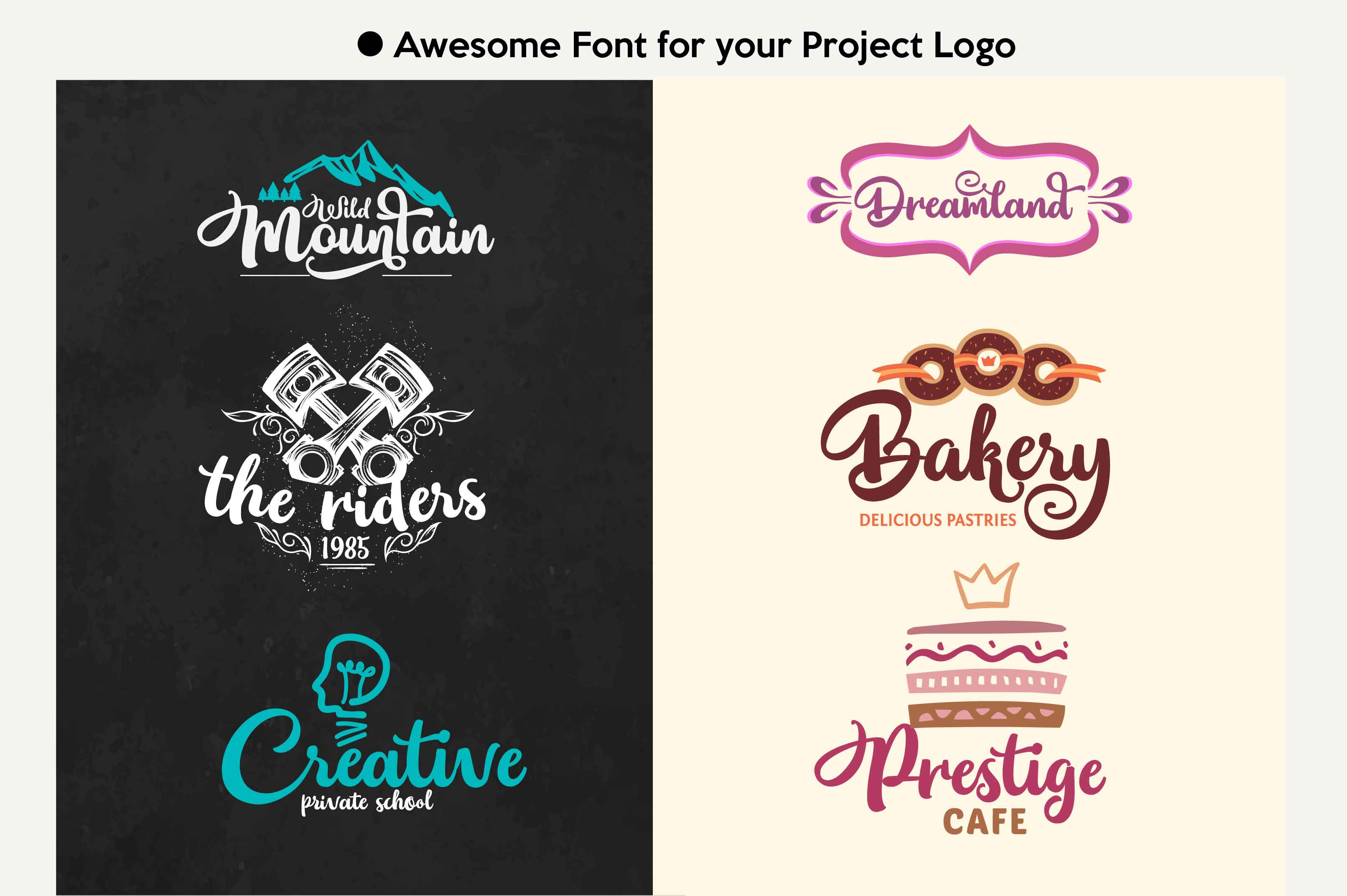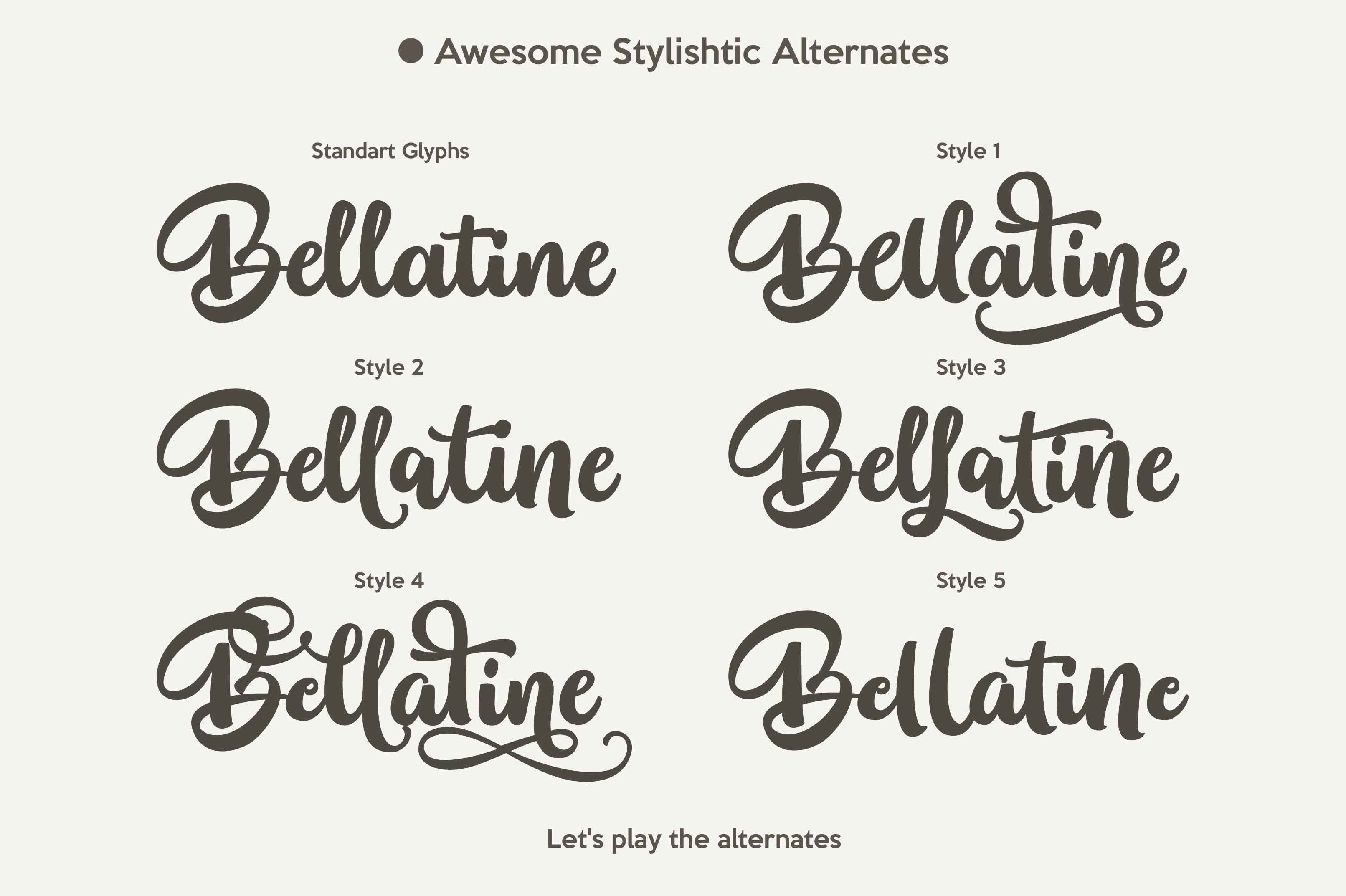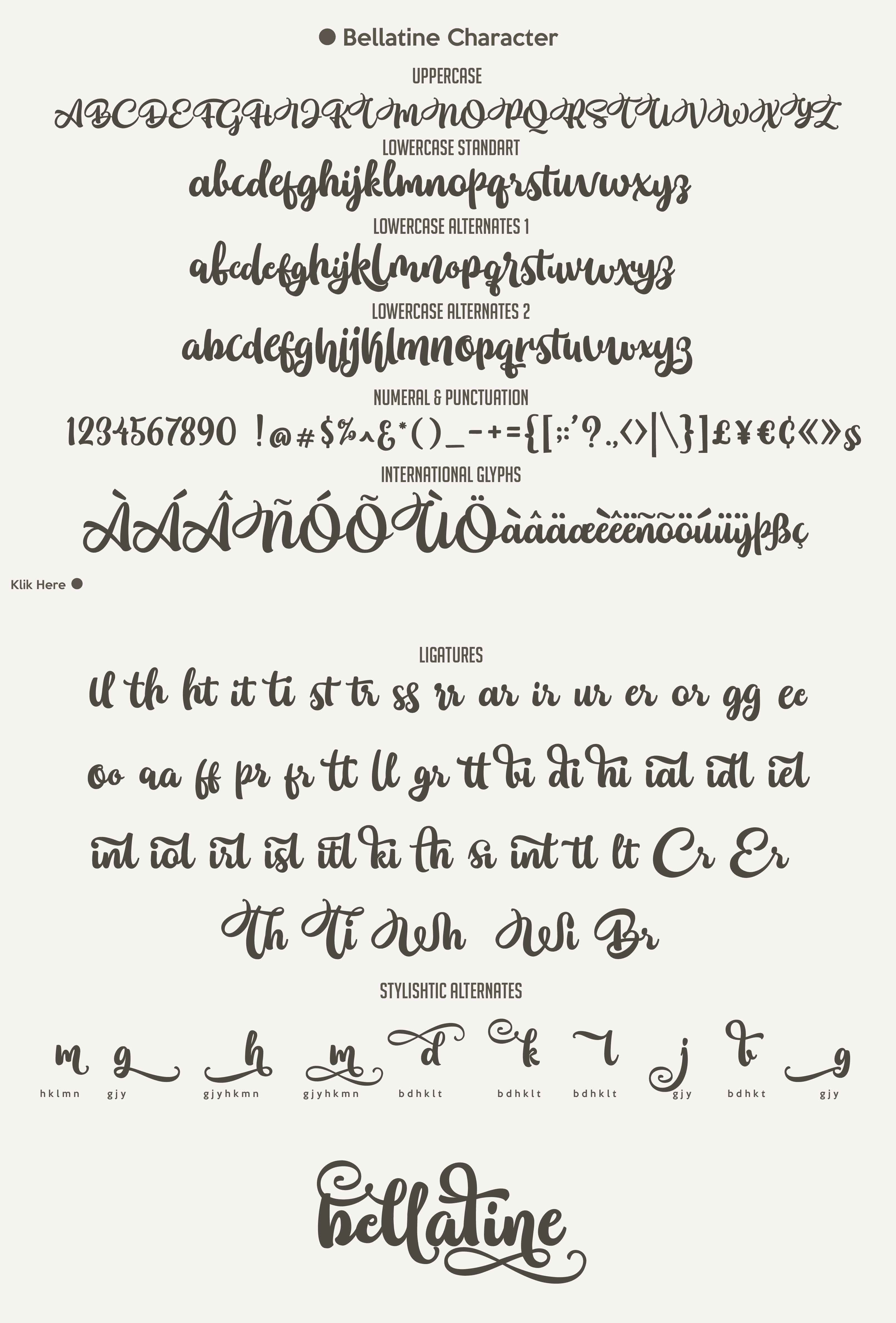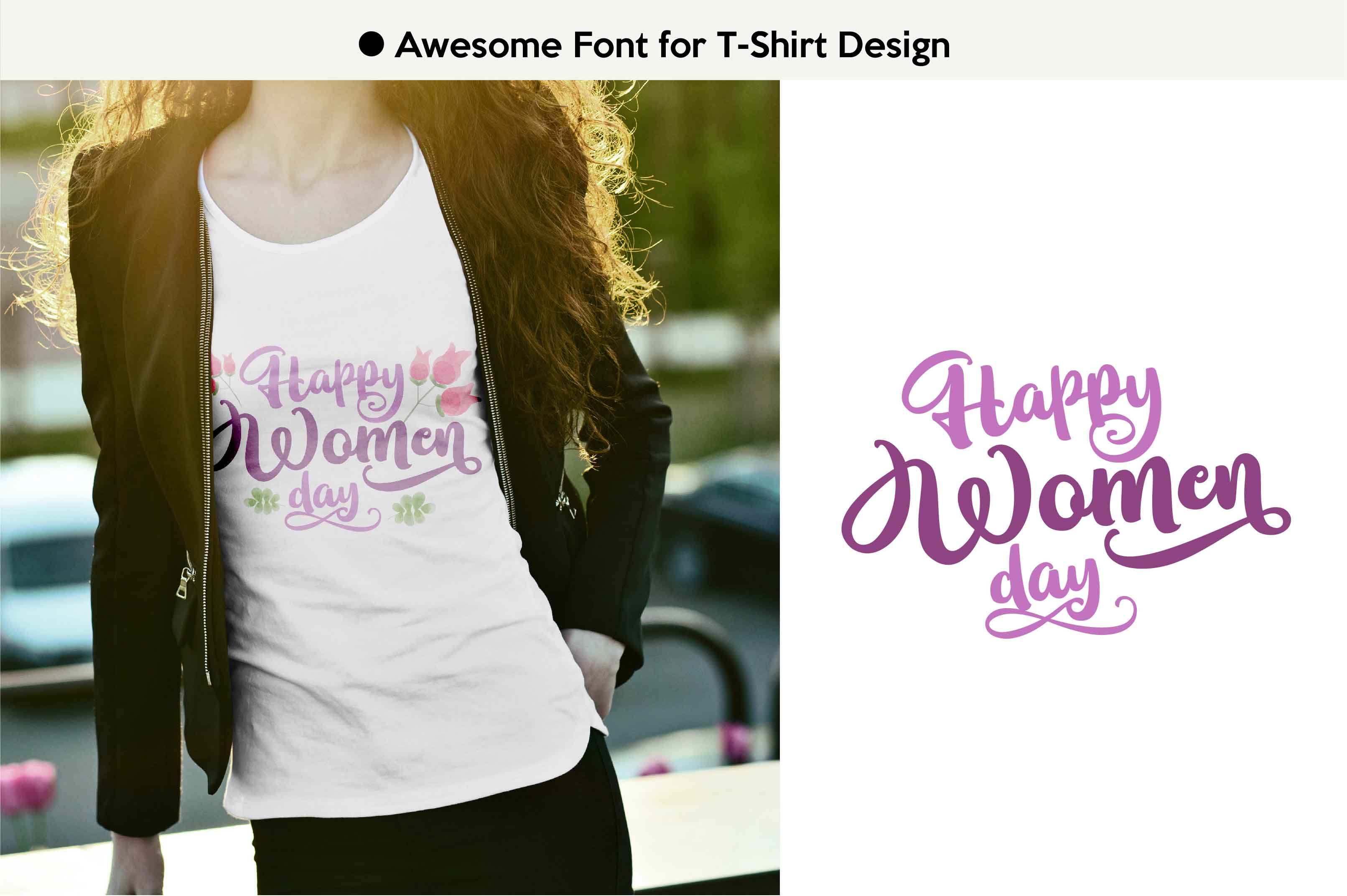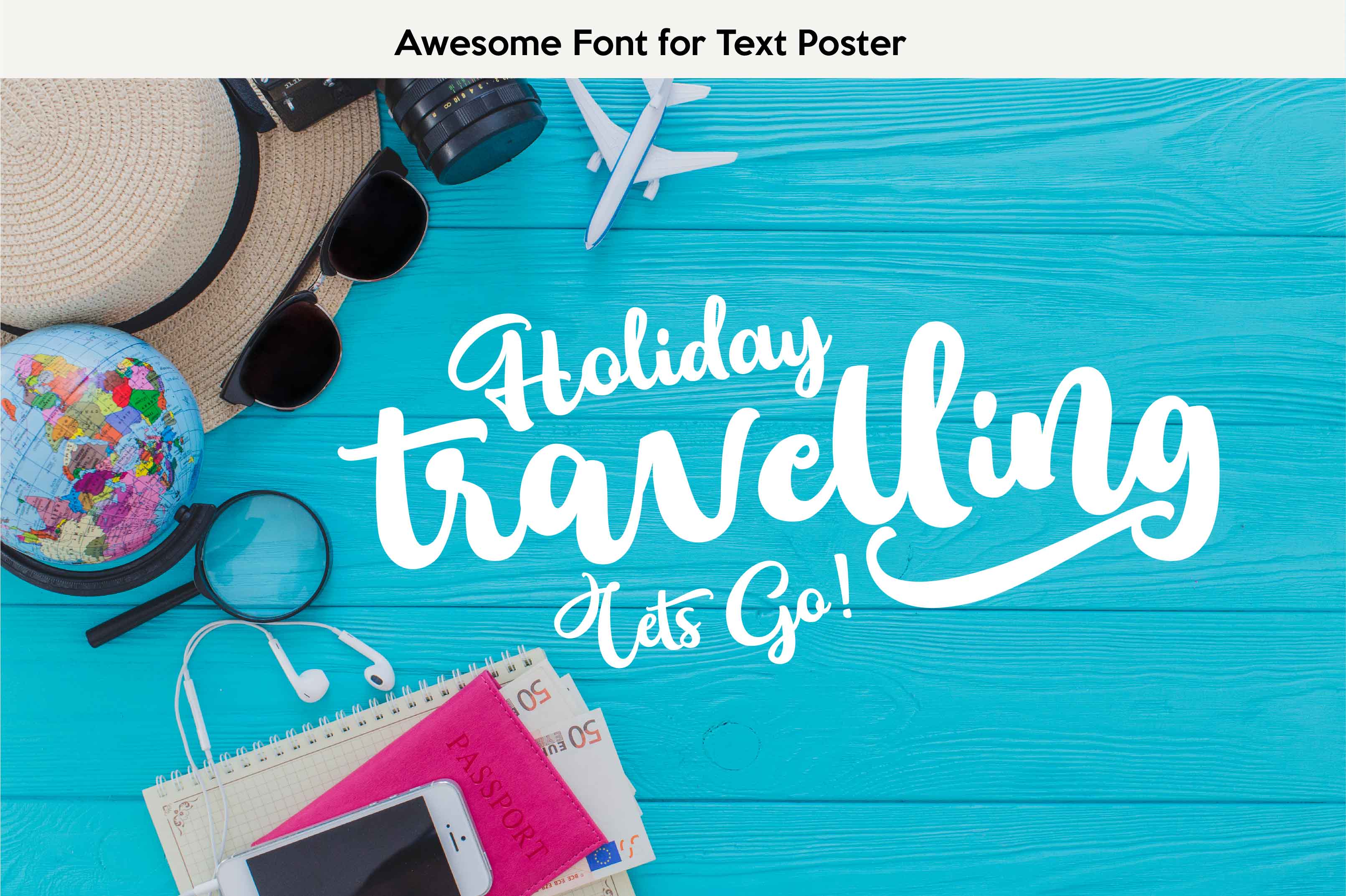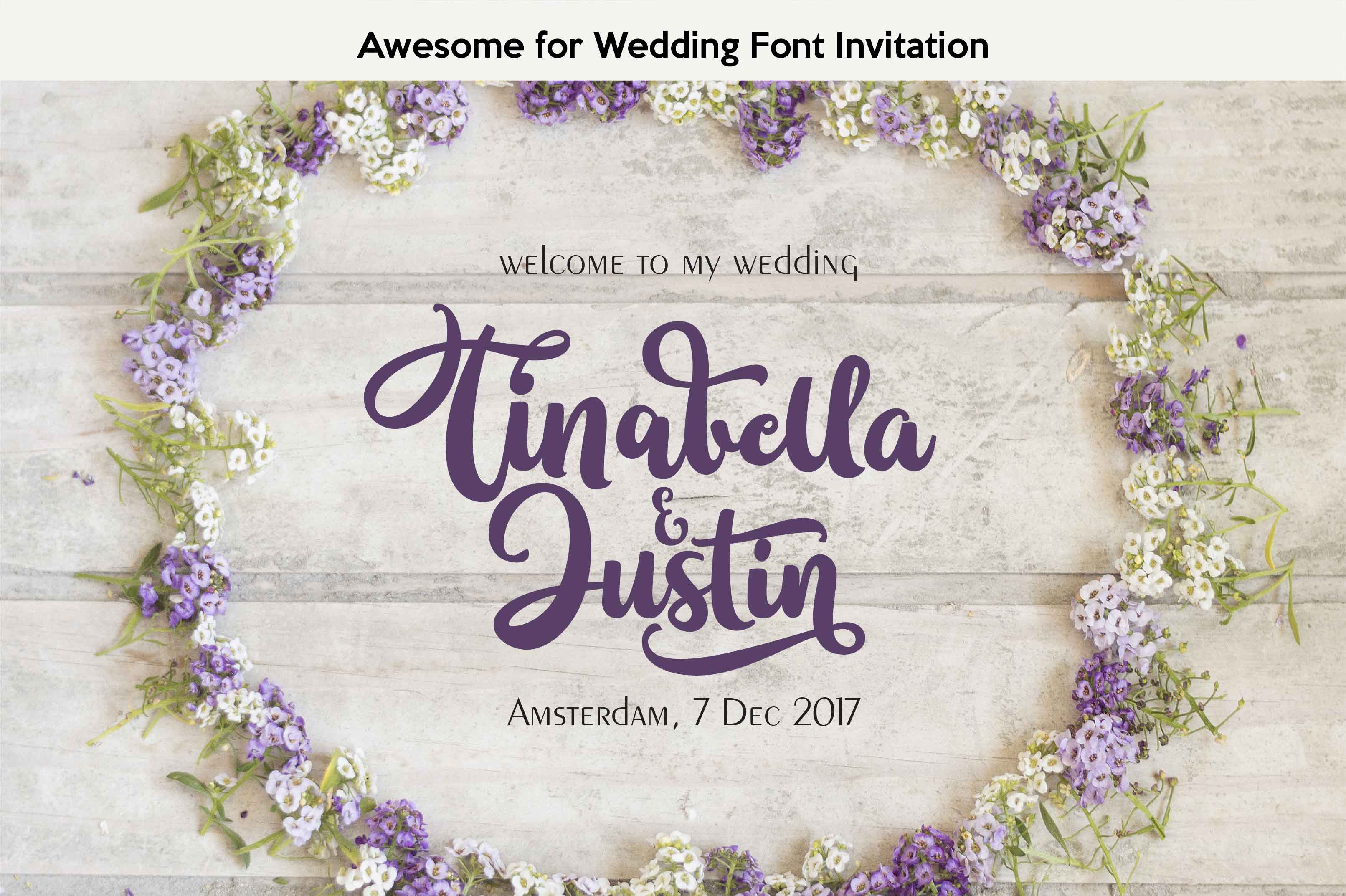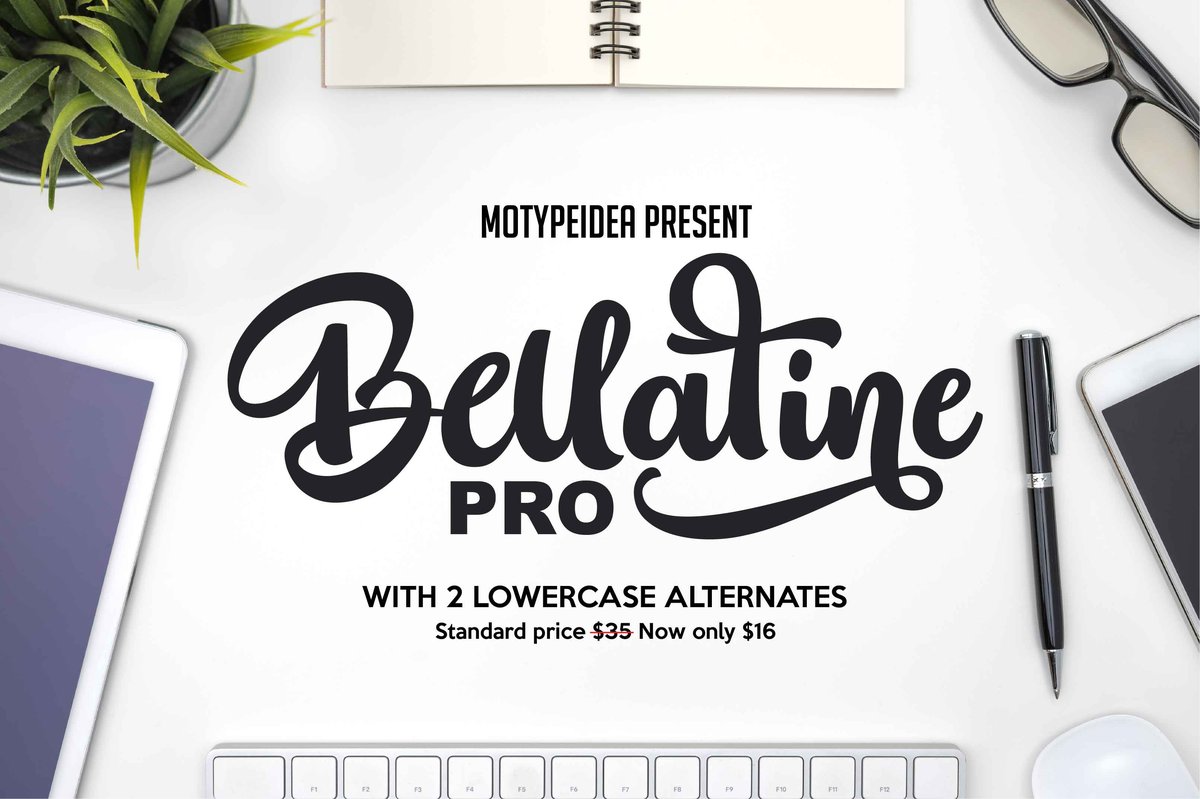
The Power of Handwritten Charm: Unleashing the Bellatine Font
As a designer, there’s nothing quite like the thrill of creating a piece that truly connects with your audience. You’re pouring your heart and soul into a project, and suddenly, the words flow effortlessly onto the page. That’s exactly what happened when I stumbled upon the Bellatine Font – a bold and strong handwritten font that exudes a sense of authenticity and charm.
Bellatine Font is designed to add a touch of personality to your designs, whether it’s a blog post, a brochure, or a social media campaign. Its smooth letters and strong lines make it perfect for creating eye-catching headlines, quotes, and titles that demand attention. For designers, Bellatine Font is a valuable tool that can help elevate their work and convey their unique style.
- Unique Characteristics: Bellatine features elegant and refined letterforms with subtle flair and ornate details, making it suitable for high-end publications and branding
Bellatine Font Review
At first glance, I was drawn to the Bellatine Font due to its elegant and feminine aesthetic. ✨ The font’s soft curves and delicate details give it a whimsical feel that’s perfect for creative projects. The font’s versatility also makes it suitable for a wide range of applications, from fashion to food branding.
Here are some of the font’s notable features:
- High-quality design that’s perfect for digital and print media
- Wide range of weights and styles to suit different design needs
- Perfect for creating a cohesive brand identity
- Supports a wide range of languages
However, there are some limitations to consider: ⚠️ The font’s delicate design can make it difficult to read at smaller sizes. Additionally, the font’s complexity may slow down font rendering, especially in older systems.
Overall, I would recommend the Bellatine Font for designers who want a high-quality, elegant font for their projects. While it has some limitations, its versatility and aesthetic appeal make it a great addition to any design toolkit.
Tips for Getting the Most Out of Bellatine Font
Here are some tips to get the most out of Bellatine font:
- Use Bellatine font for headings and titles to add a touch of elegance.
- Pair Bellatine font with a sans-serif font for body text to create a clean and modern look.
- Experiment with different font sizes and styles to add depth and visual interest.
Bellatine font is suitable for:
- Editorial and publishing designs.
Alternatives to Bellatine Font
Great Vibes Font is a modern, elegant script font designed by Laurent Bourdelas. It is ideal for use in invitations, wedding cards, and other formal events where a touch of sophistication is required. Great Vibes Font is similar to Bellatine Font in its flowing, cursive style, but has a more refined and polished look.
Carolyna Pro Font is a luxurious, high-end script font designed by Carolyna. It is perfect for use in premium branding, packaging, and advertising where a sense of luxury and elegance is desired. Carolyna Pro Font has a more dramatic and elaborate look compared to Bellatine Font, making it suitable for high-end designs.
Alex Brush Font is a beautiful, handwritten script font designed by Pizzazz. It is ideal for use in creative projects, such as book covers, magazine articles, and posters where a personal touch is required. Alex Brush Font has a more rustic and organic look compared to Bellatine Font, making it suitable for designs that require a more earthy feel.
Dancing Script Font is a lively, energetic script font designed by Pablo Impallari. It is perfect for use in fun and playful projects, such as children’s books, party invitations, and social media graphics where a sense of joy and excitement is desired. Dancing Script Font has a more dynamic and whimsical look compared to Bellatine Font, making it suitable for designs that require a more lively feel.